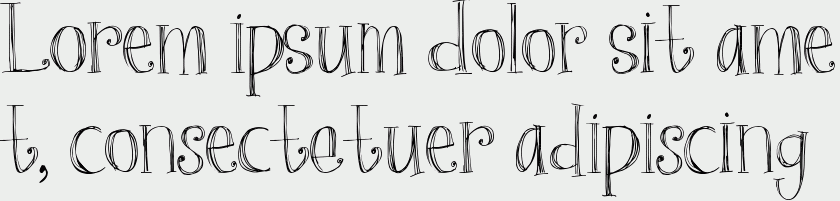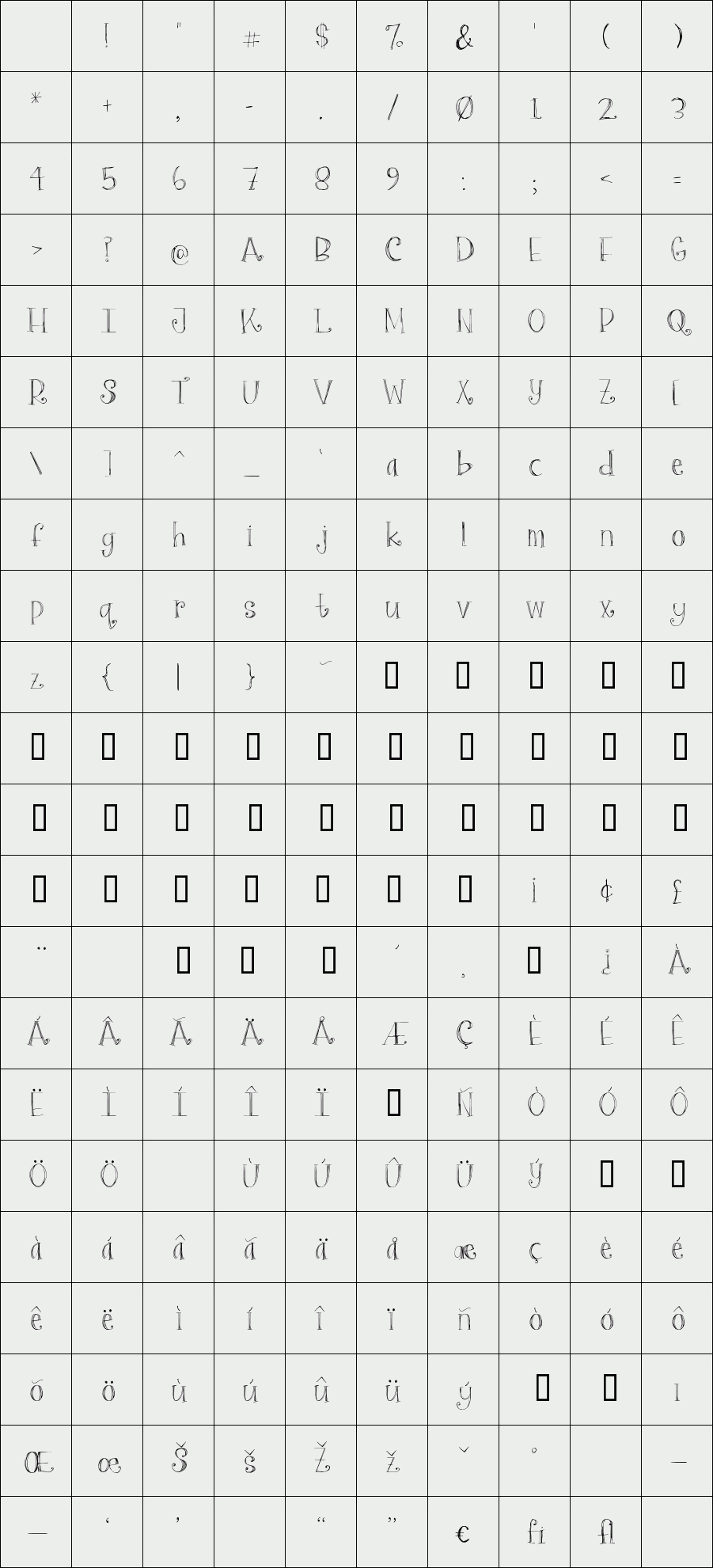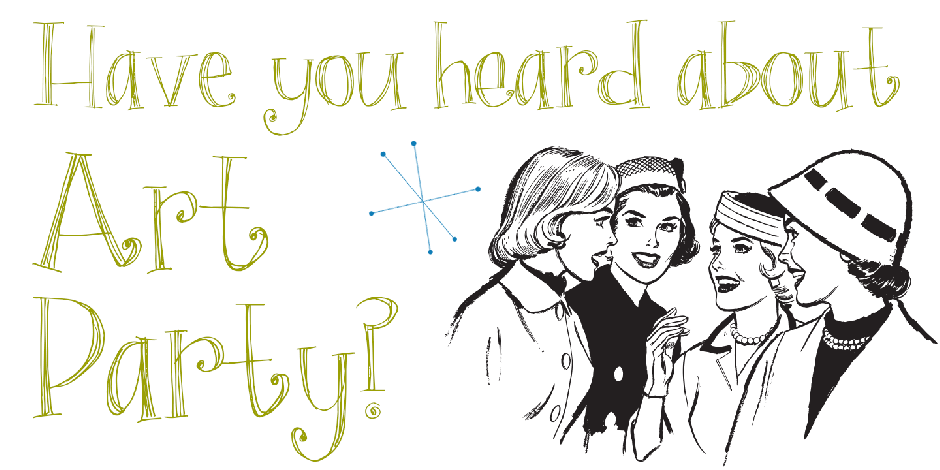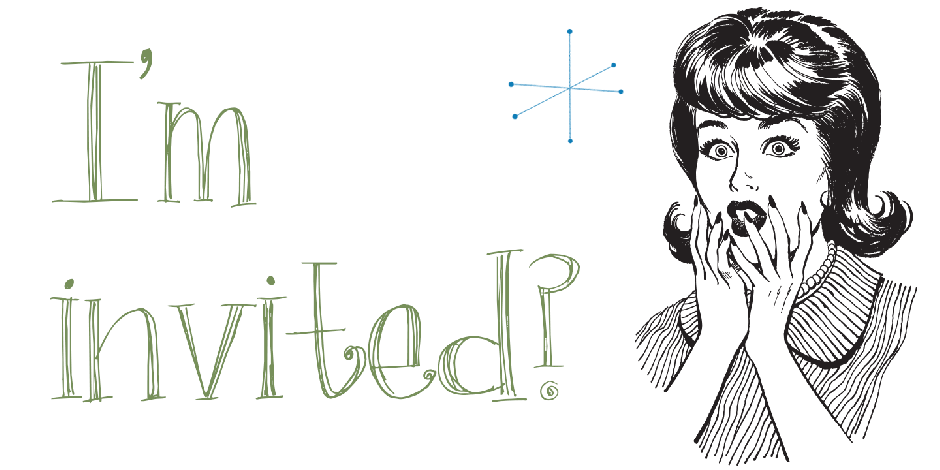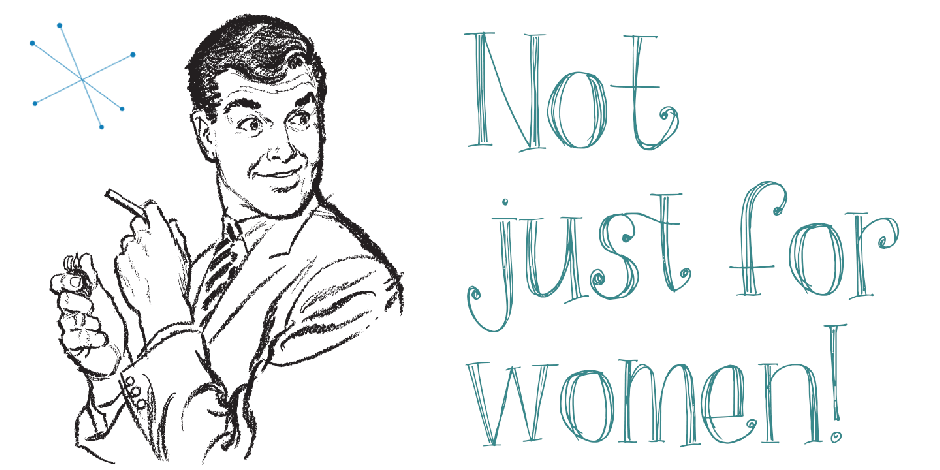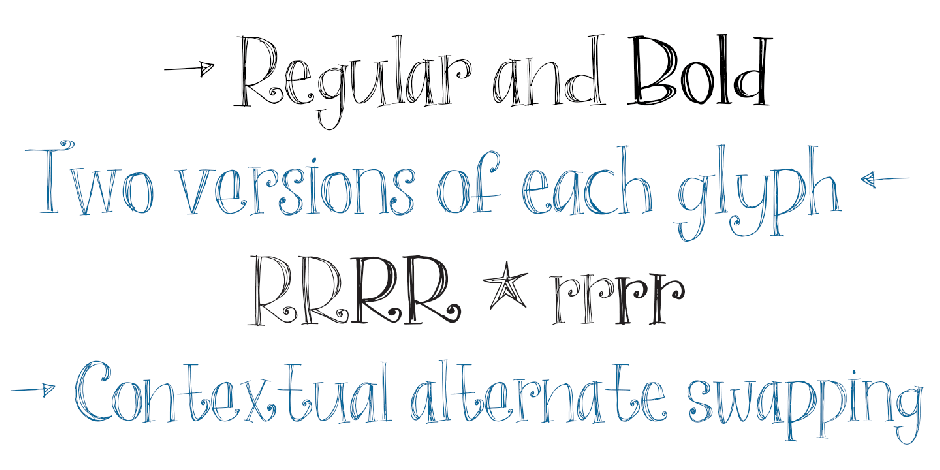
Art Party
/ Art Party Regular
Art Party is a hand-drawn font suitable for headlines of all kinds when you want a handmade look. Prissy Pots owner Erin Solomon drew the playful letters, which include regular and bold versions. Each face also offers an entirely separate set of upper and lowercase letters accessible in your applications' glyphs palettes. With contextual alternates turned on, these extra letters show up automatically, yielding a more natural, random look.